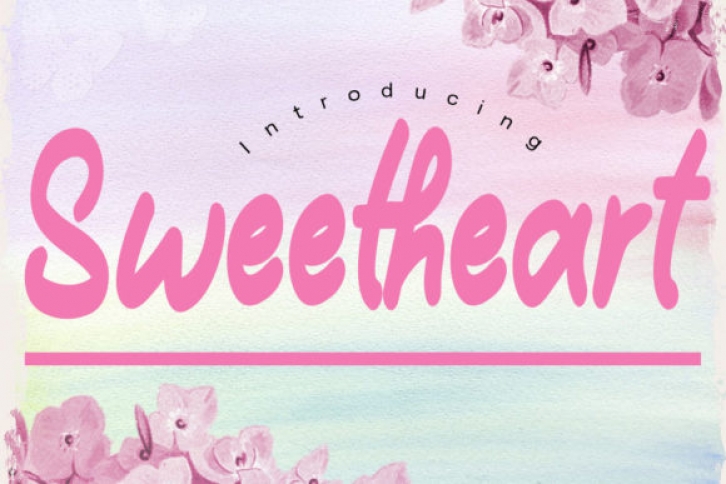
Sweetheart is a bold and incredibly unique script font. Masterfully designed to become a true favorite, this font has the potential to bring each of your creative ideas to the highest level!